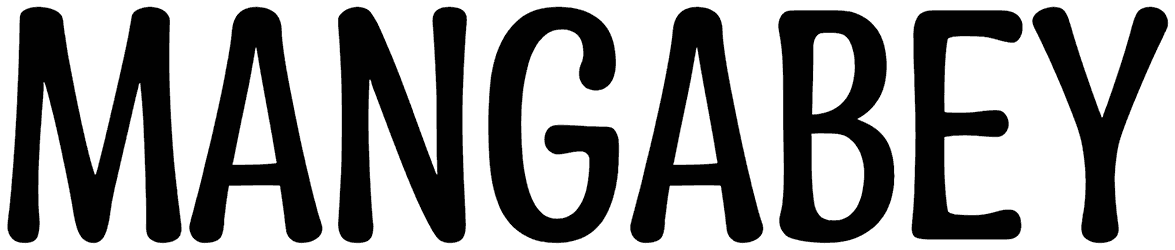
Mangabey Font
If you have a project with various topics or you want to have an appearance that matches any taste, this will be a good suggestion. As a handwritten font, Mangabey has a soft and minimal style and reflects a delightful v…
If you have a project with various topics or you want to have an appearance that matches any taste, this will be a good suggestion. As a handwritten font, Mangabey has a soft and minimal style and reflects a delightful vibe. Put this simple font on your future layouts like posters, covers, magazines, or suchlike, and overjoy the results.